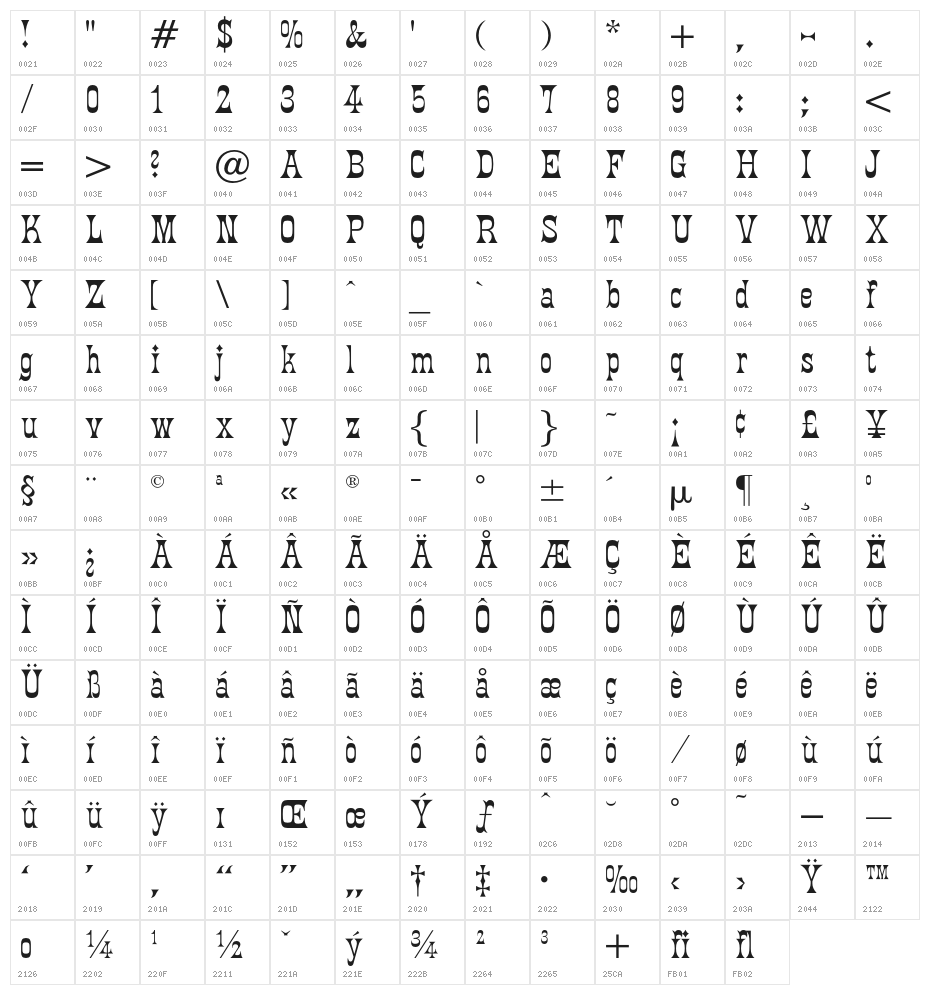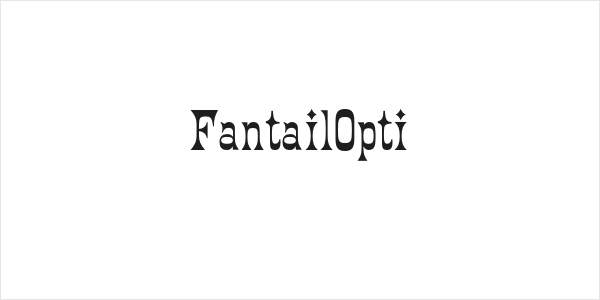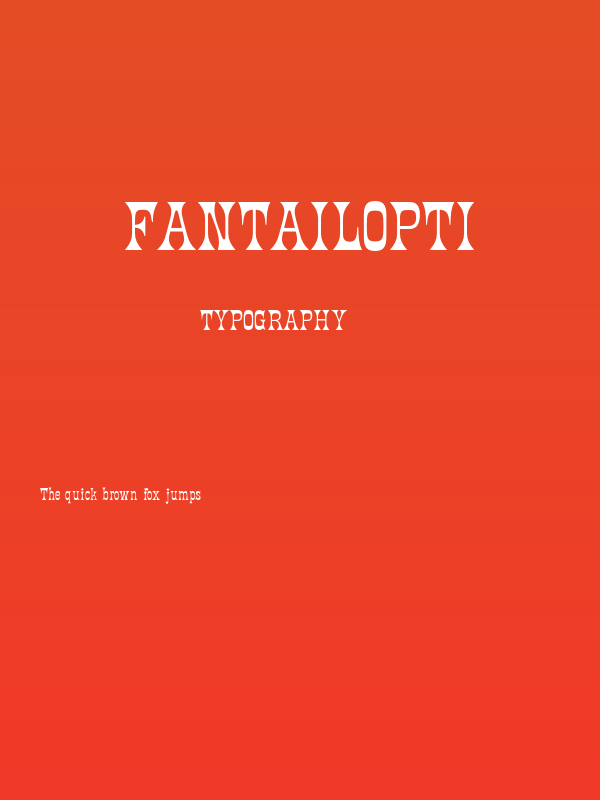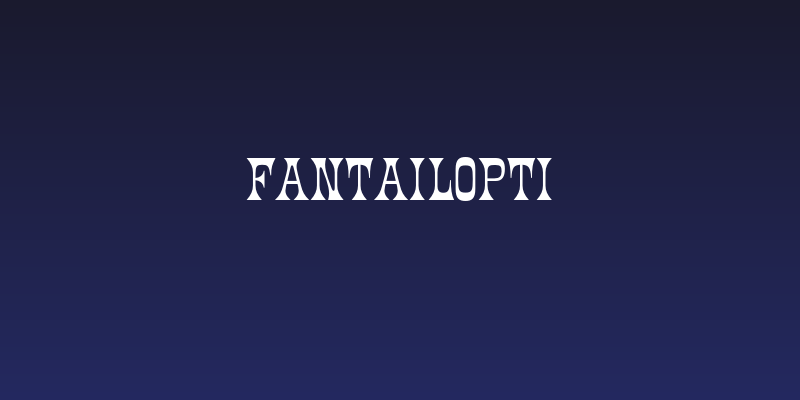
FantailOpti Font
FantailOpti Description
This font features a unique and bold design with high contrast between thick and thin strokes, creating a dramatic and eye-catching appearance. The uppercase letters exhibit a distinct geometric style with sharp angles and curves, while the lowercase letters maintain a consistent flow with rounded edges. The numerals are equally bold, ensuring readability and impact. Special characters are crafted with the same attention to detail, making them suitable for various design needs. The overall style is both modern and decorative, offering versatility for creative projects.